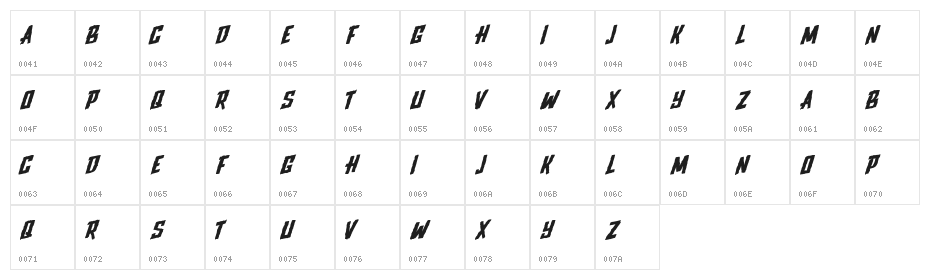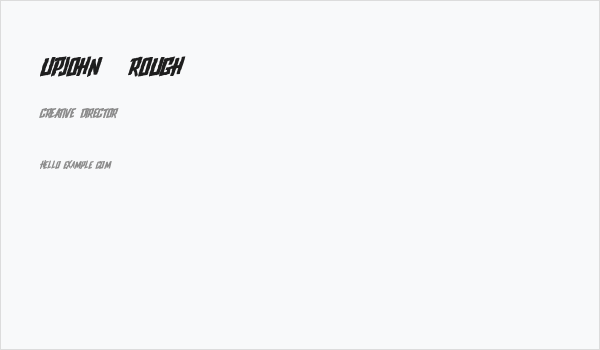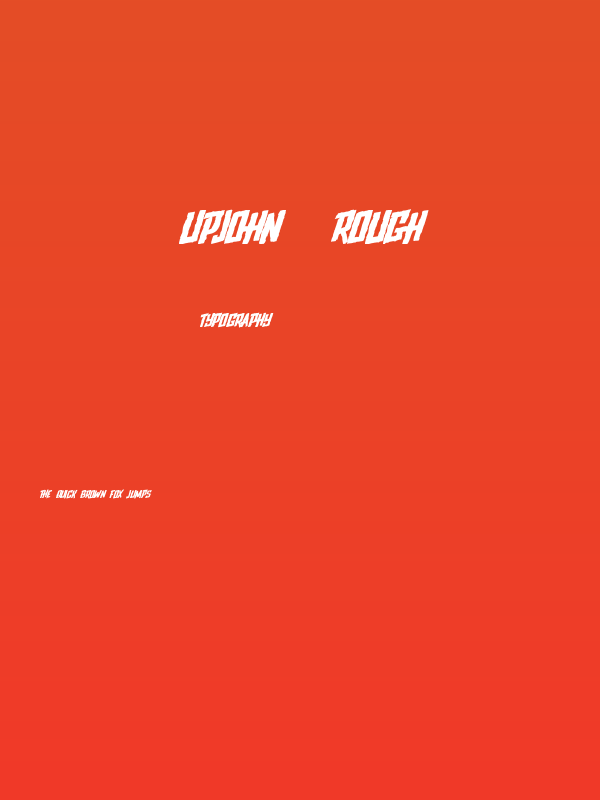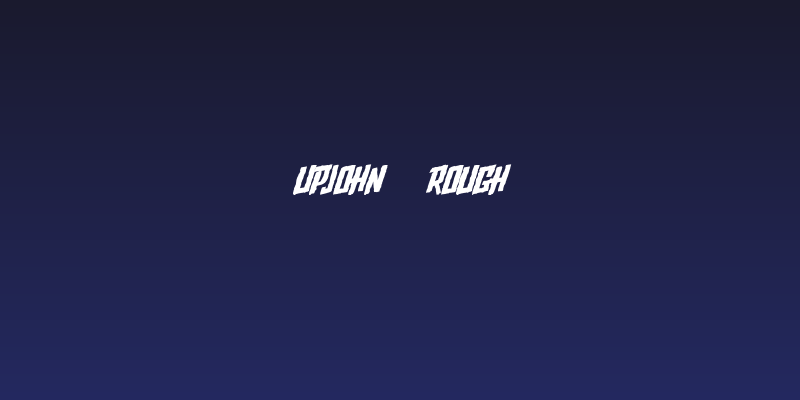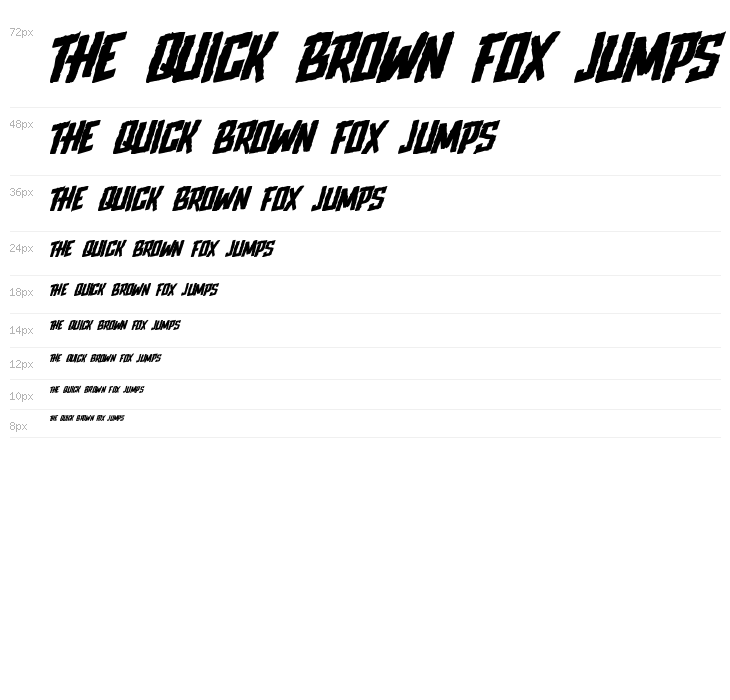
Upjohn - Rough Font
Upjohn - Rough Description
This font features a bold and rugged style with a rough, textured appearance that gives it a dynamic and energetic feel. The characters are slanted, adding a sense of movement and urgency. The strokes are thick and uneven, contributing to its raw and edgy aesthetic. This font is highly distinctive, making it ideal for projects that require a strong visual impact. The uppercase letters are particularly striking, with sharp angles and a slightly condensed form that enhances its boldness. The overall design is reminiscent of graffiti or street art, making it suitable for creative and unconventional applications.
| Width | Condensed |
| Overall Style | Modern, Edgy |
| Proposed Projects | Ideal for posters, album covers, sports branding, and streetwear designs. |